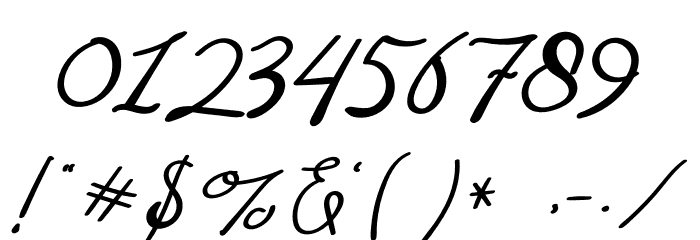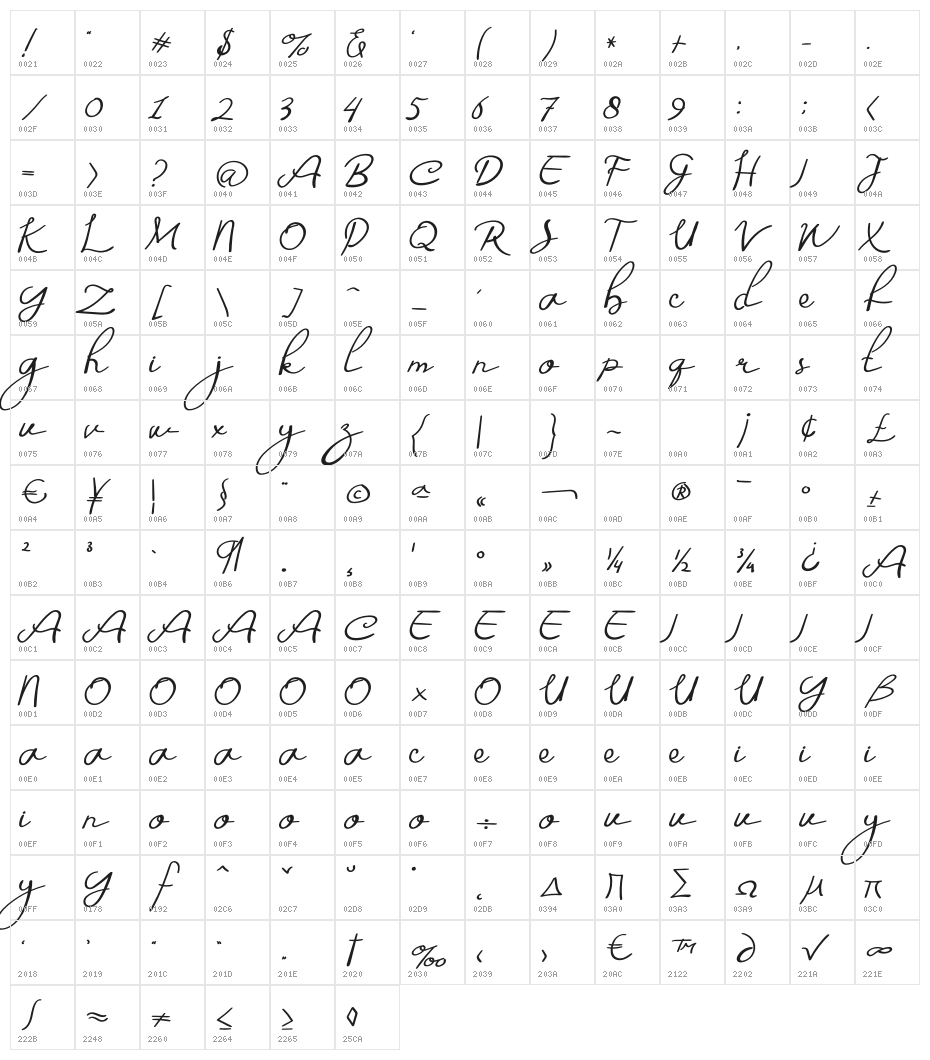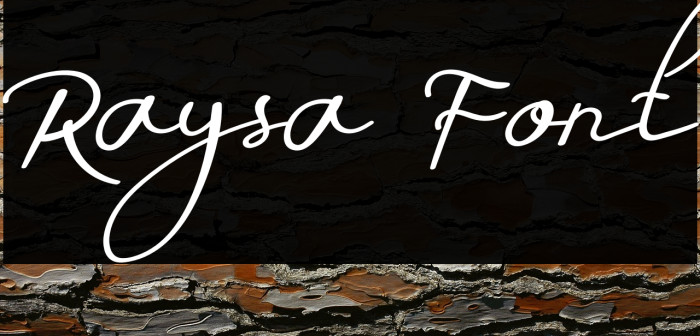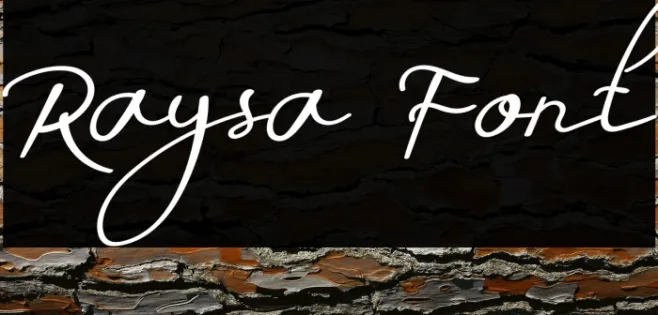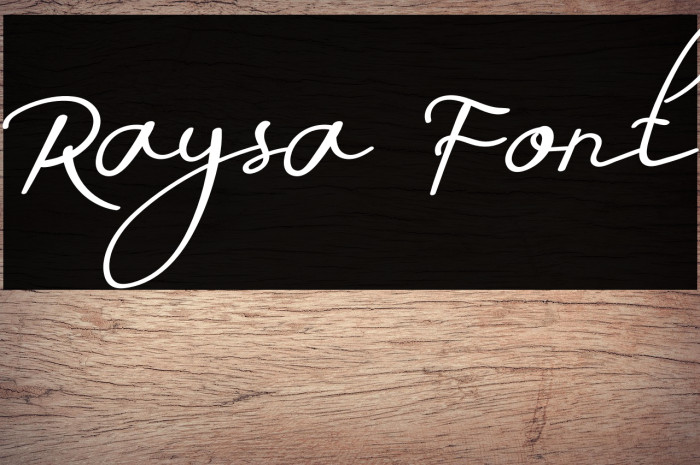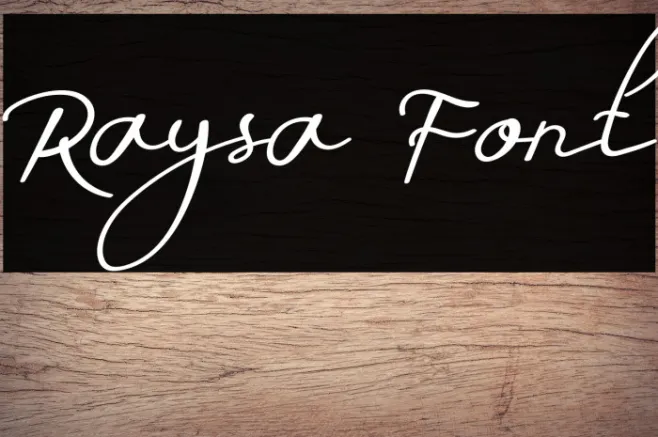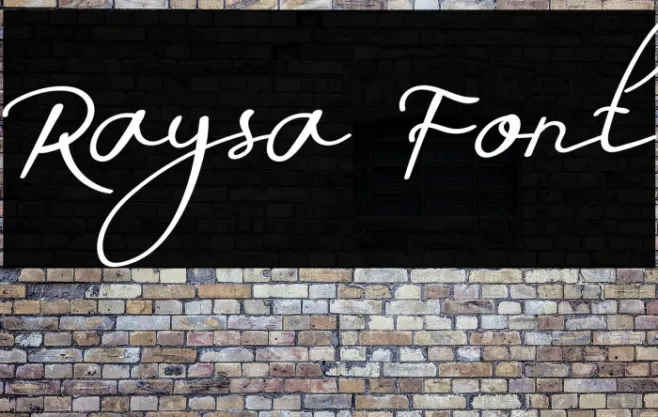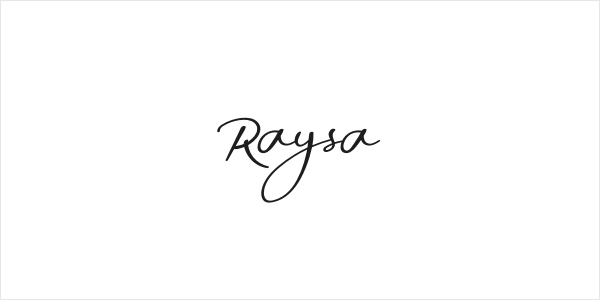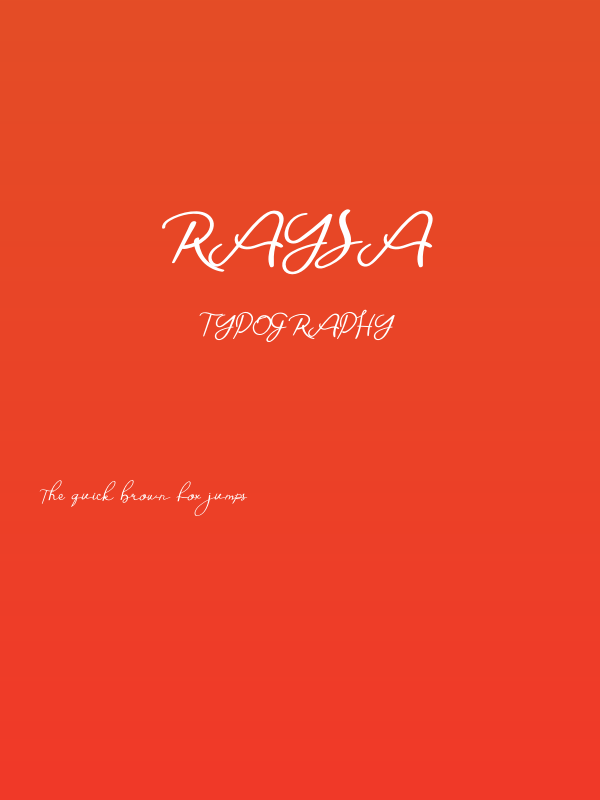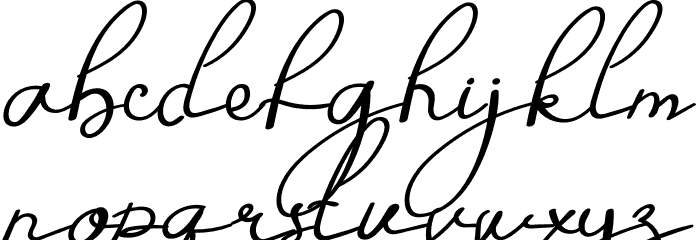
Raysa Font
Raysa Description
This font exudes elegance and fluidity, characterized by its cursive script style with smooth, flowing lines. The uppercase letters are distinct with graceful loops and curves, while the lowercase letters maintain a consistent slant, enhancing the handwritten feel. The numerals are clear and slightly more upright, ensuring readability. Special characters are integrated seamlessly, maintaining the overall aesthetic. The font's design is both sophisticated and approachable, making it suitable for a variety of creative applications.